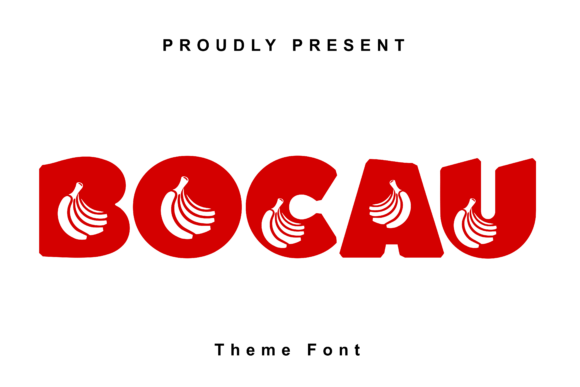
Bocau Font: Unleashing the Magic of Childhood in Typography
In the realm of typography, few fonts manage to capture the essence of childhood joy and purity as effectively as Bocau. This enchanting typeface is designed to transport you back to a time of simplicity and wonder, where the boundaries between letters and artistry blur. With its unique blend of creativity and form, Bocau is an ideal asset for a wide range of creative endeavors, from educational content to brand communications.
The Genesis of Bocau: A Font Born of Wistfulness
Bocau’s design is infused with the spirit of juvenile wistfulness, a nostalgic longing for the carefree days of childhood. This typeface is not just a collection of letters; it’s an experience that evokes memories of laughter, curiosity, and imagination. The creators of Bocau aimed to bottle the magic of childhood and put it into a font that would inspire designers, writers, and artists to create works that delight and captivate their audiences.
Redefining Typography: The Unique Features of Bocau
Bocau redefines the boundaries between letters and artistry by transforming ordinary characters into an extraordinary visual feast. This distinct amalgamation of creativity and form is achieved through several unique features:
- Playful Curves: Bocau’s curves are designed to mimic the fluidity and spontaneity of childhood drawings, giving the font a lively and dynamic feel.
- Vibrant Lines: The lines in Bocau are bold and expressive, imbuing the font with a sense of energy and movement.
- Whimsical Details: From subtle swashes to playful ligatures, Bocau’s details are carefully crafted to evoke a sense of wonder and enchantment.
Bocau in Education: Bringing Joy to Learning
Bocau’s playful and youthful design makes it an ideal font for educational content, particularly for children’s books, textbooks, and learning materials. By incorporating Bocau into educational resources, creators can:
- Capture Young Minds: Bocau’s whimsical design helps to engage young readers, making learning more enjoyable and interactive.
- Convey Complex Concepts Simply: The font’s clear and legible design ensures that complex concepts are communicated in a way that’s easy for children to understand.
- Inspire Creativity: Bocau’s artistic flair encourages children to think creatively and explore their imagination.
Bocau in Brand Communications: Adding a Touch of Whimsy
Bocau’s unique blend of creativity and form makes it an excellent choice for brand communications seeking to add a touch of whimsy and delight. By incorporating Bocau into their branding, companies can:
- Stand Out: Bocau’s distinctive design helps brands differentiate themselves in a crowded market.
- Connect with Audiences: The font’s playful and youthful vibe resonates with audiences, fostering a deeper connection between the brand and its customers.
- Convey Brand Personality: Bocau’s creative and artistic flair allows brands to express their personality and values in a unique and captivating way.
The Benefits of Using Bocau: Why Designers Love This Font
Designers and creators love Bocau for several reasons:
- Versatility: Bocau’s flexibility makes it suitable for a wide range of creative projects, from digital content to print materials.
- Legibility: The font’s clear and readable design ensures that messages are communicated effectively.
- Emotional Connection: Bocau’s whimsical design helps create an emotional connection with audiences, making it an ideal choice for projects that aim to engage and inspire.
Tips for Using Bocau Effectively in Your Designs
To get the most out of Bocau, consider the following tips:
- Pair with Neutral Fonts: Combine Bocau with neutral fonts to create a balanced and harmonious design.
- Experiment with Colors: Bocau’s playful design lends itself well to bold and bright color schemes.
- Use for Headings and Titles: Bocau’s creative flair makes it perfect for headings and titles, adding a touch of whimsy to your designs.
Conclusion: Discover the Enchantment of Bocau
Bocau is more than just a font – it’s an experience that evokes the magic of childhood and the joy of creativity. With its unique blend of playfulness and sophistication, Bocau is an ideal asset for designers, writers, and artists seeking to create works that delight and captivate their audiences. Whether you’re working on educational content, brand communications, or personal projects, Bocau is sure to bring a touch of enchantment and wonder to your designs.